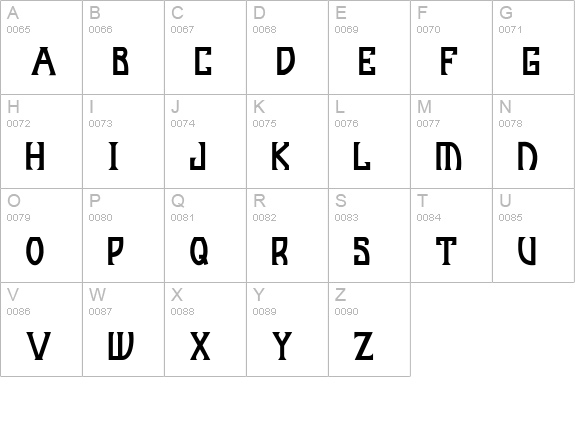
JI Manhattan Font Details
JI Manhattan is a stunning font that exudes elegance and sophistication. With its sleek and modern design, this typeface is perfect for creating eye-catching headlines, logos, and branding materials. It strikes the perfect balance between classic and contemporary, making it versatile for a wide range of design projects. What sets JI Manhattan apart is not only its impeccable aesthetics, but also the fact that it is available for free. Yes, you read that right – this exceptional font can be downloaded without any cost at FontsMarket.com. It's a rare gem in the world of typography, where premium fonts often come with a hefty price tag. But JI Manhattan breaks the mold, making it accessible to designers, creatives, and enthusiasts alike. The clean lines and precise curves of JI Manhattan make for a visually pleasing experience. Its carefully crafted letterforms guarantee legibility even at small sizes, while maintaining its stunning impact when used in larger formats. Whether you're designing a website, a magazine layout, or an invitation, JI Manhattan will effortlessly elevate your designs to new heights. The versatility of this font extends beyond its usage in digital and print media. JI Manhattan is also ideal for crafting elegant and personalized messages. From wedding invitations to heartfelt love letters, this font adds a touch of refinement that is sure to leave a lasting impression. So why wait? Take advantage of this exceptional opportunity to enhance your design projects with the timeless beauty of JI Manhattan. Visit FontsMarket.com today and download this incredible font for free. Let JI Manhattan be your secret weapon in creating captivating designs that are both visually stunning and memorable.